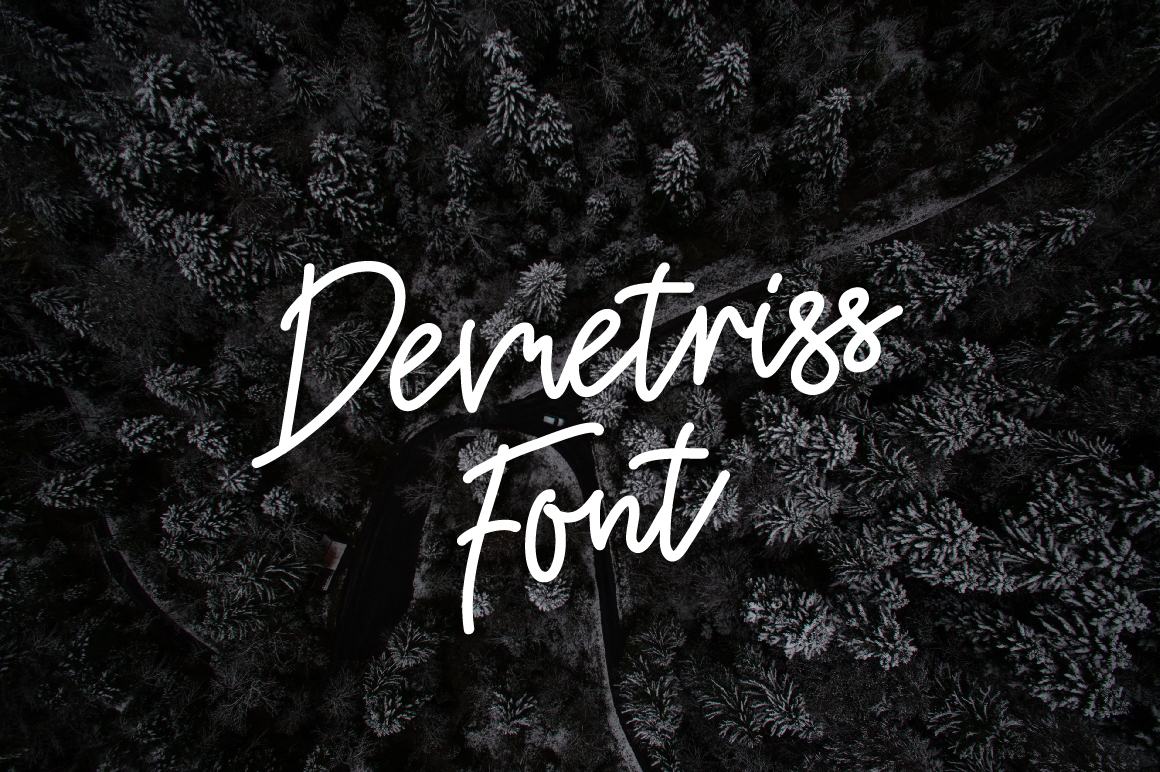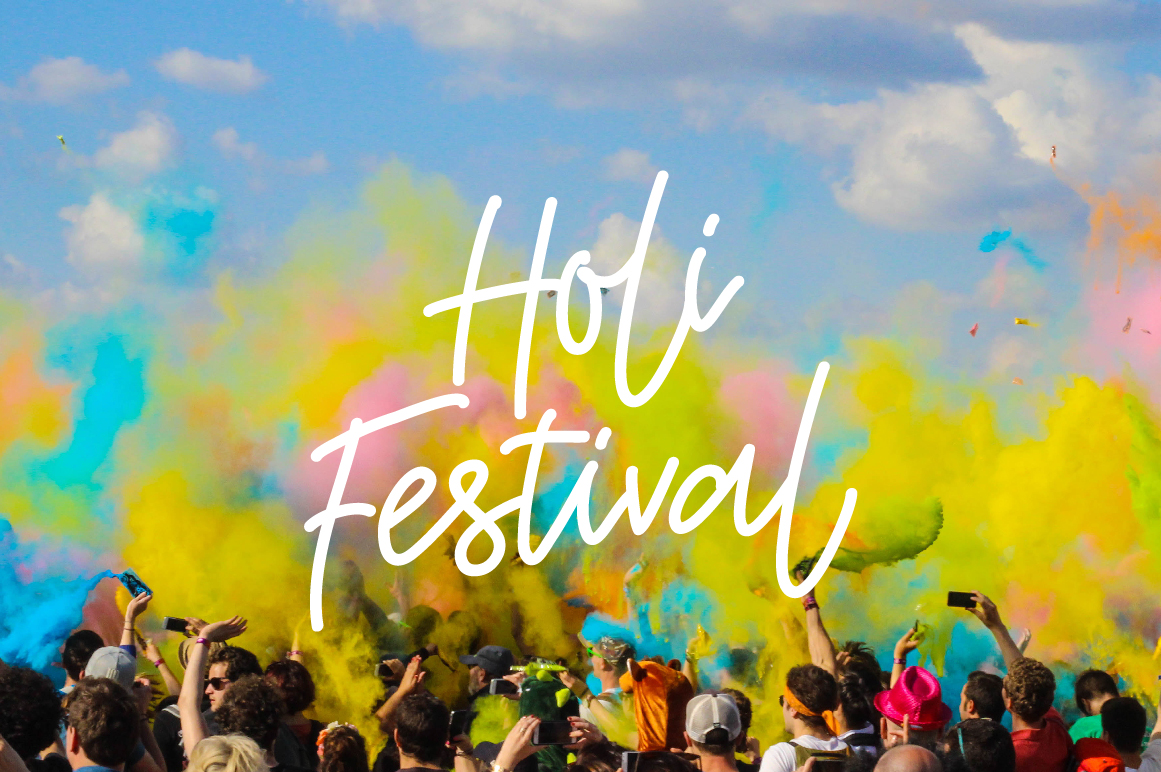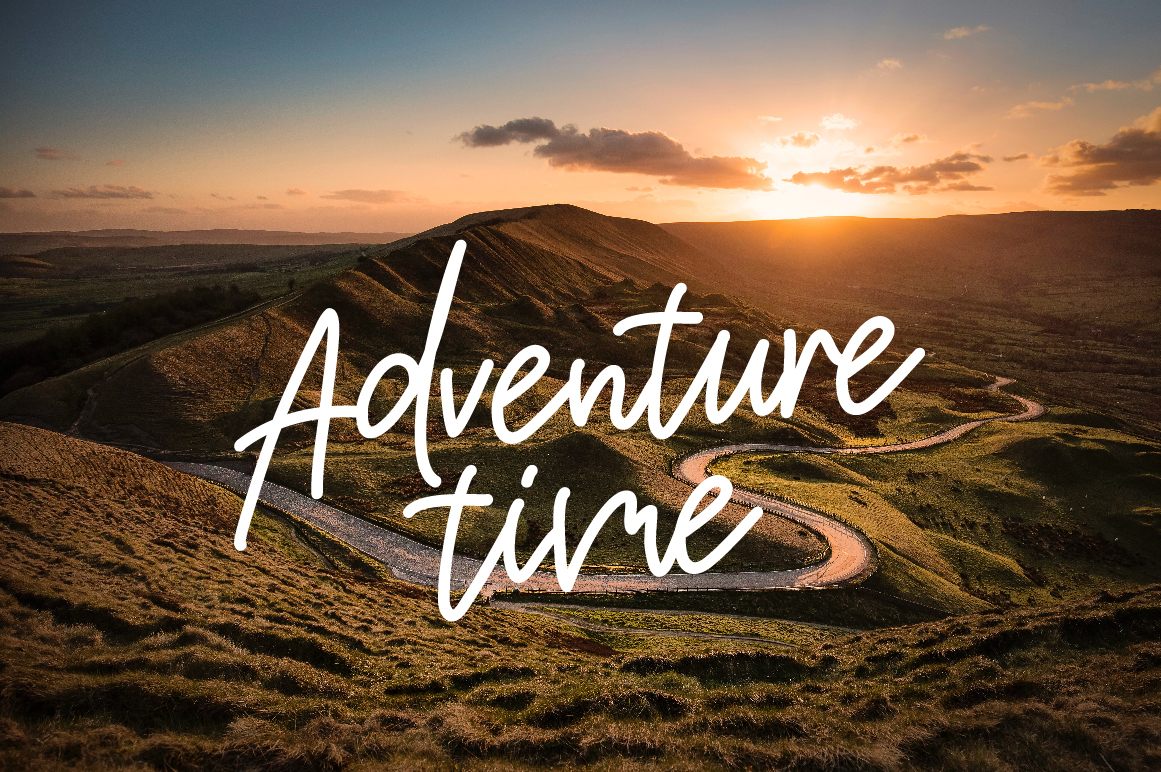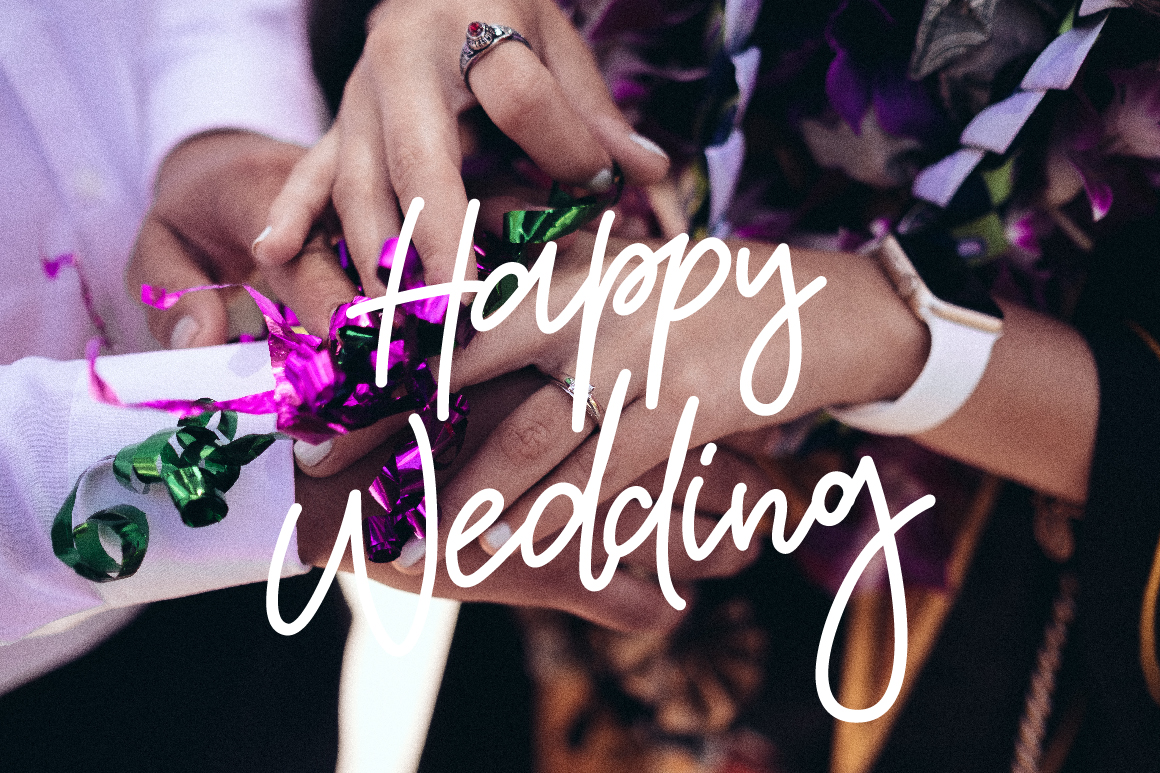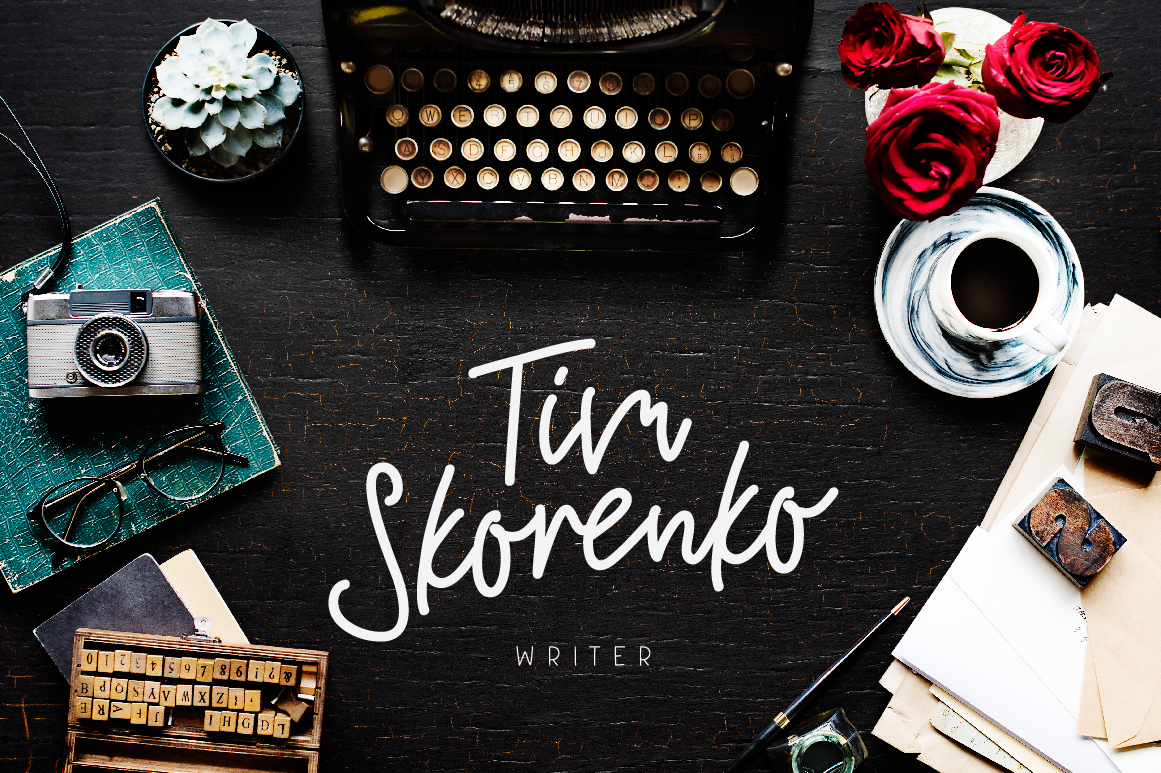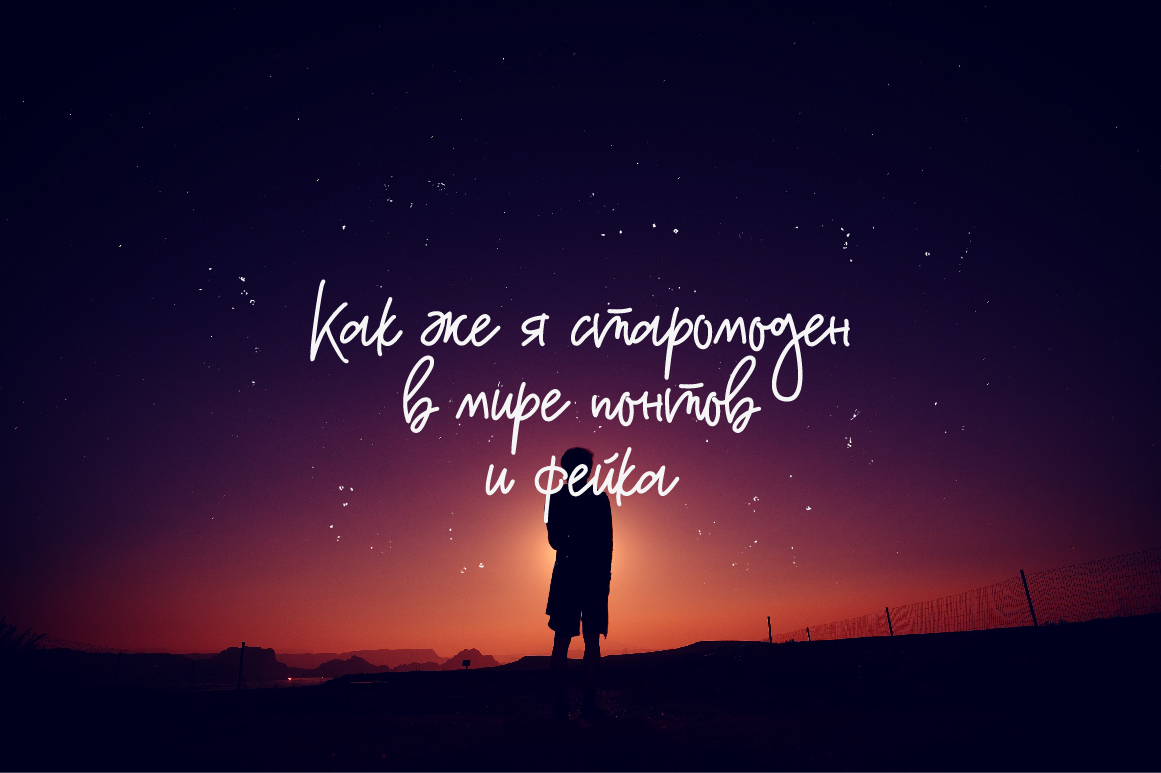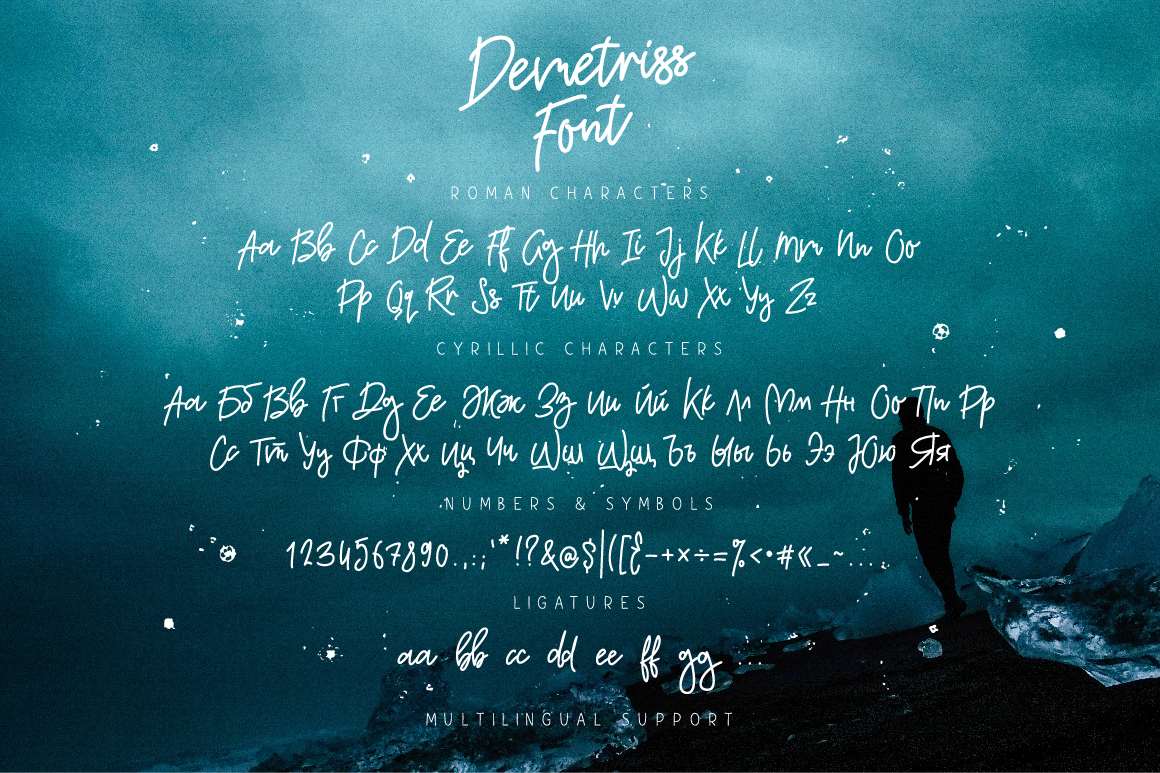
Demetriss Font
About Demetriss Font
Demetriss is a unique handwritten font. It comes with uppercase and lowercase characters, large set of punctuation glyphs, numerals, ligatures, Cyrillic characters and multilingual support.
Perfect for logos, greeting cards, product packaging, t-shirt, handwritten quotes and etc.